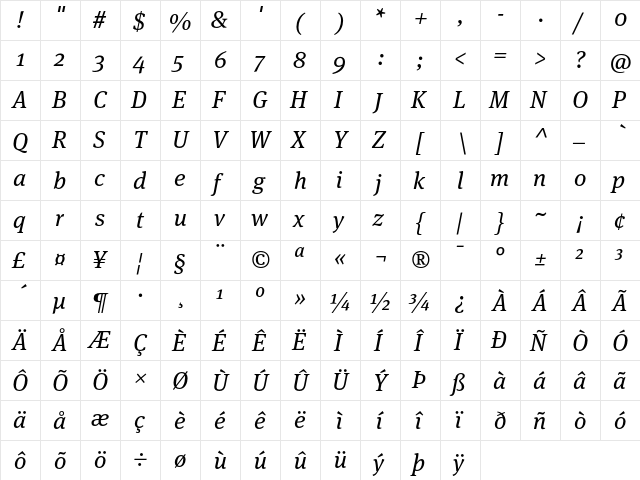
MetaSerif-BookIta Regular Font Preview
MetaSerif-BookIta Regular
Design Context for MetaSerif-BookIta Typeface
MetaSerif-BookIta brings classic typographic sensibility to the table — its serifs and measured letterforms reflect centuries of print heritage.
Pro Tip: Set MetaSerif-BookIta with slightly loose tracking in headlines to let each letterform's detail read clearly at display sizes.